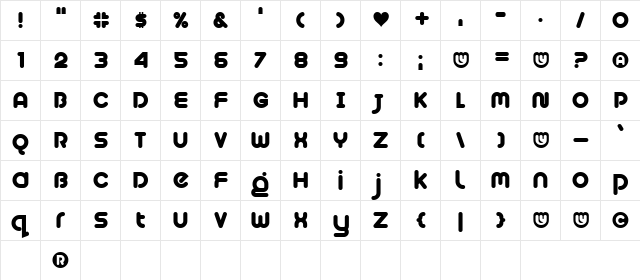
Plush Regular Font Preview
Plush Regular
Plush Regular Font Details
Design Context for Plush Typeface
Plush is a composed and adaptable typeface that performs quietly and consistently across a wide range of design contexts.
Pro Tip: Use Plush in both headline and body roles to test its range before committing to a single application.